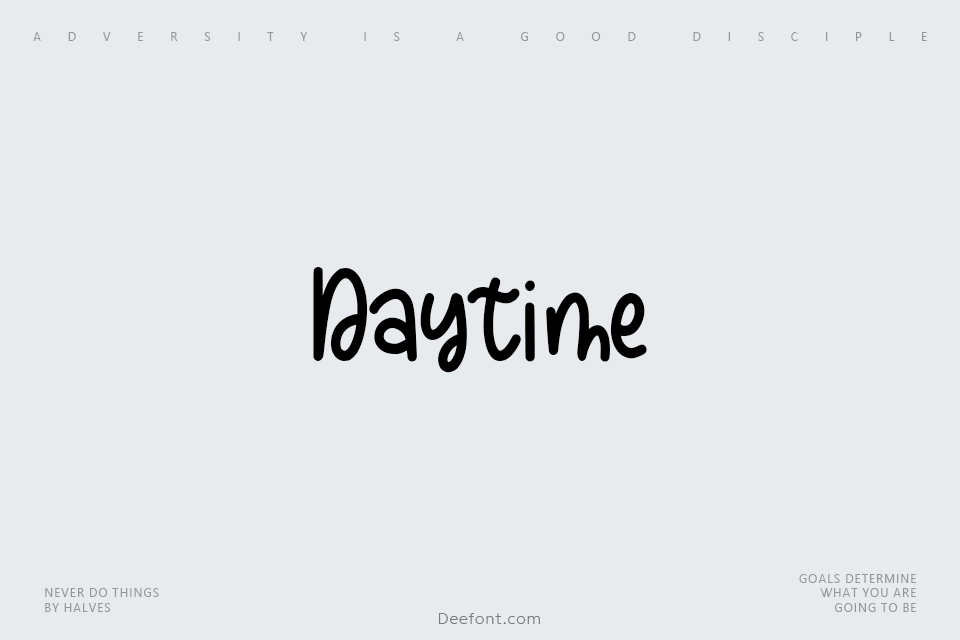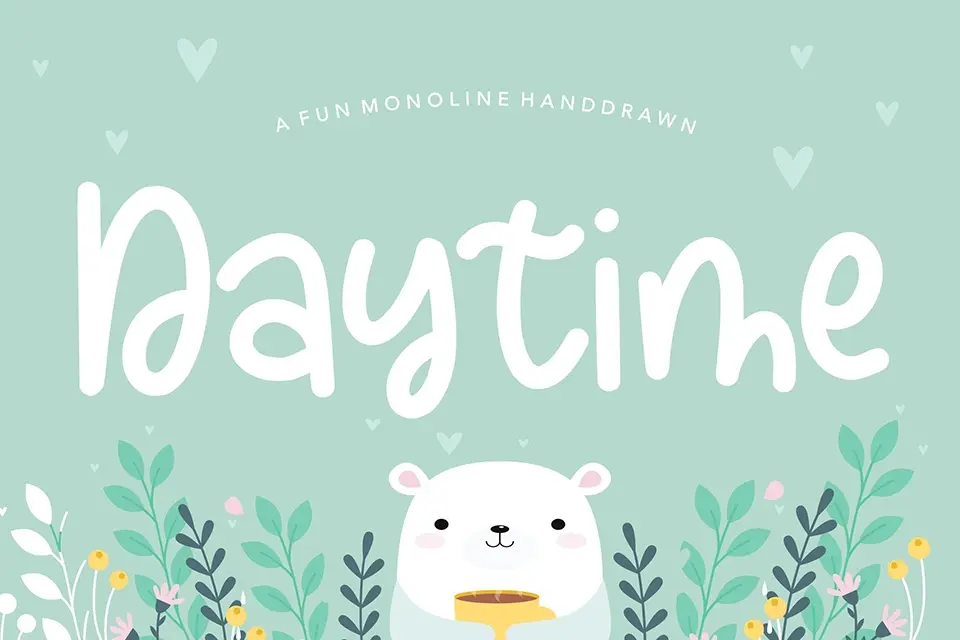
Daytime Font
Daytime is a fun and charming monoline handdrawn script font created by Balpirick Studio. This modern casual script combines smooth, flowing letterforms with an inviting, friendly character, making it ideal for creative projects including product packaging, branding, magazine design, social media content, and wedding materials. With its distinctive handwritten aesthetic and multilingual support, Daytime delivers elegant typography that seamlessly expresses personality and warmth across all design applications.